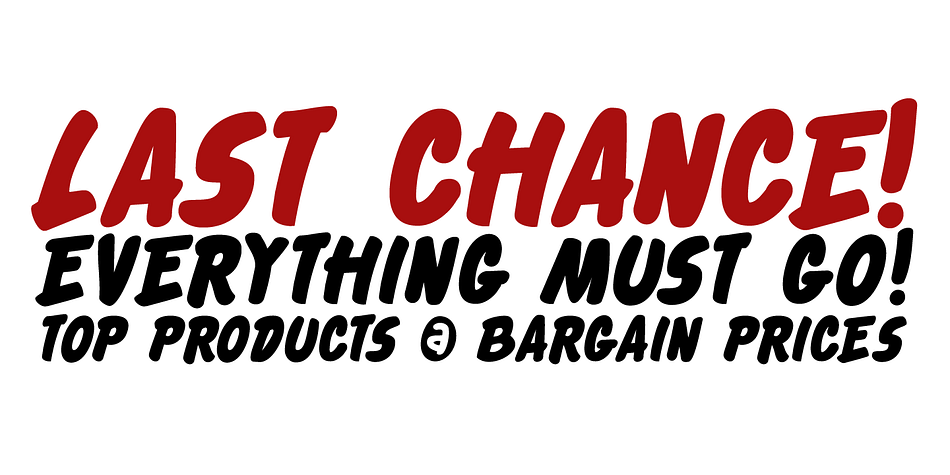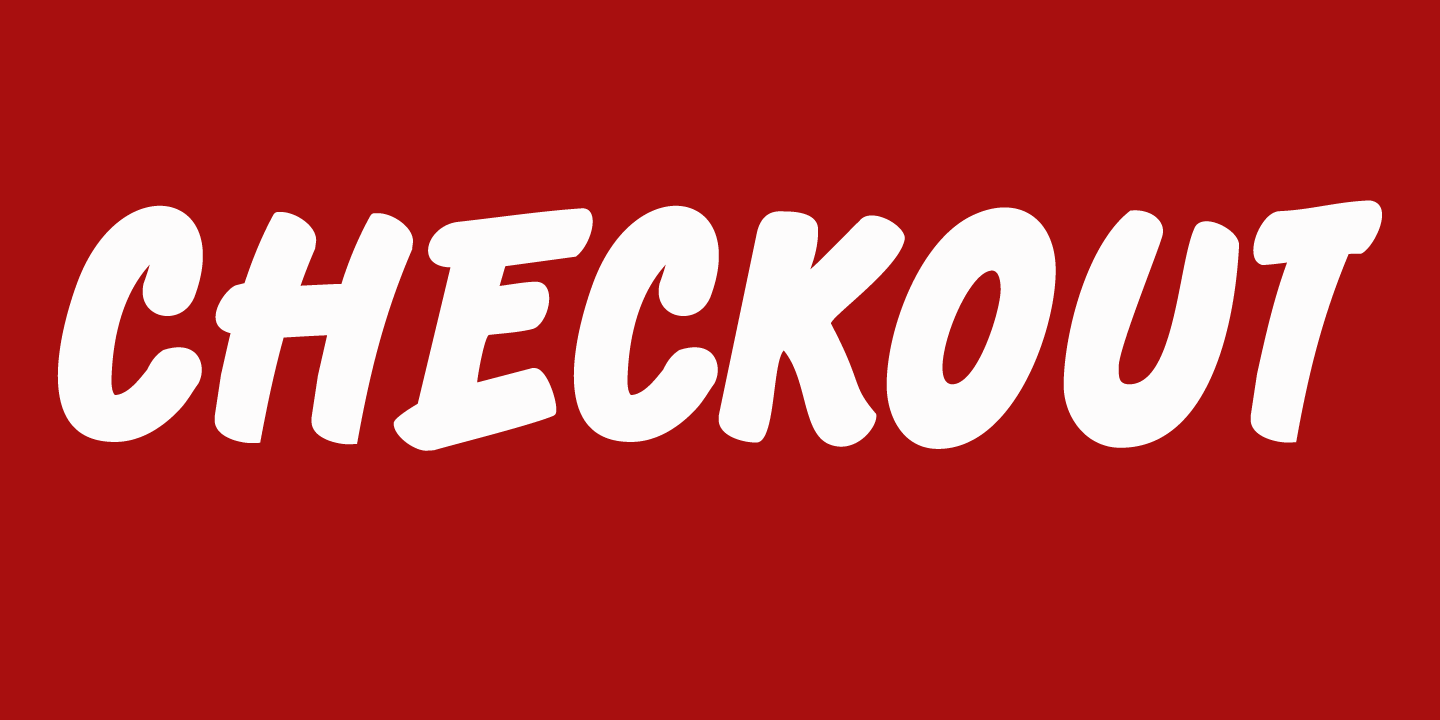
Checkout is a comic and hand display font published by Hanoded.
Checkout is a fat, slightly cursive, poster font. It was modeled after ‘clearance sale’ signs and a 1950 Mexican movie poster for Los Olvidados (directed by Luis Buñuel). Checkout can be used for headlines, posters and, of course, for your clearance sale! The font comes with a hard-to-beat amount of diacritics.